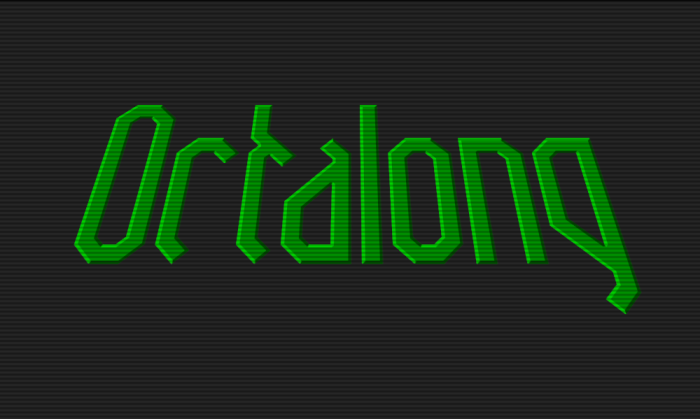
Octa-long
cool y
8-tall
@alekoymostro Yep, that's why I named it that.
@JingYo Thank you! I really like how the y turned out too.
@elw123 That is not correct, to create as close to equal thickness as possible between the horizontal/vetrical and diagonals, the capitals are actually 49-tall.